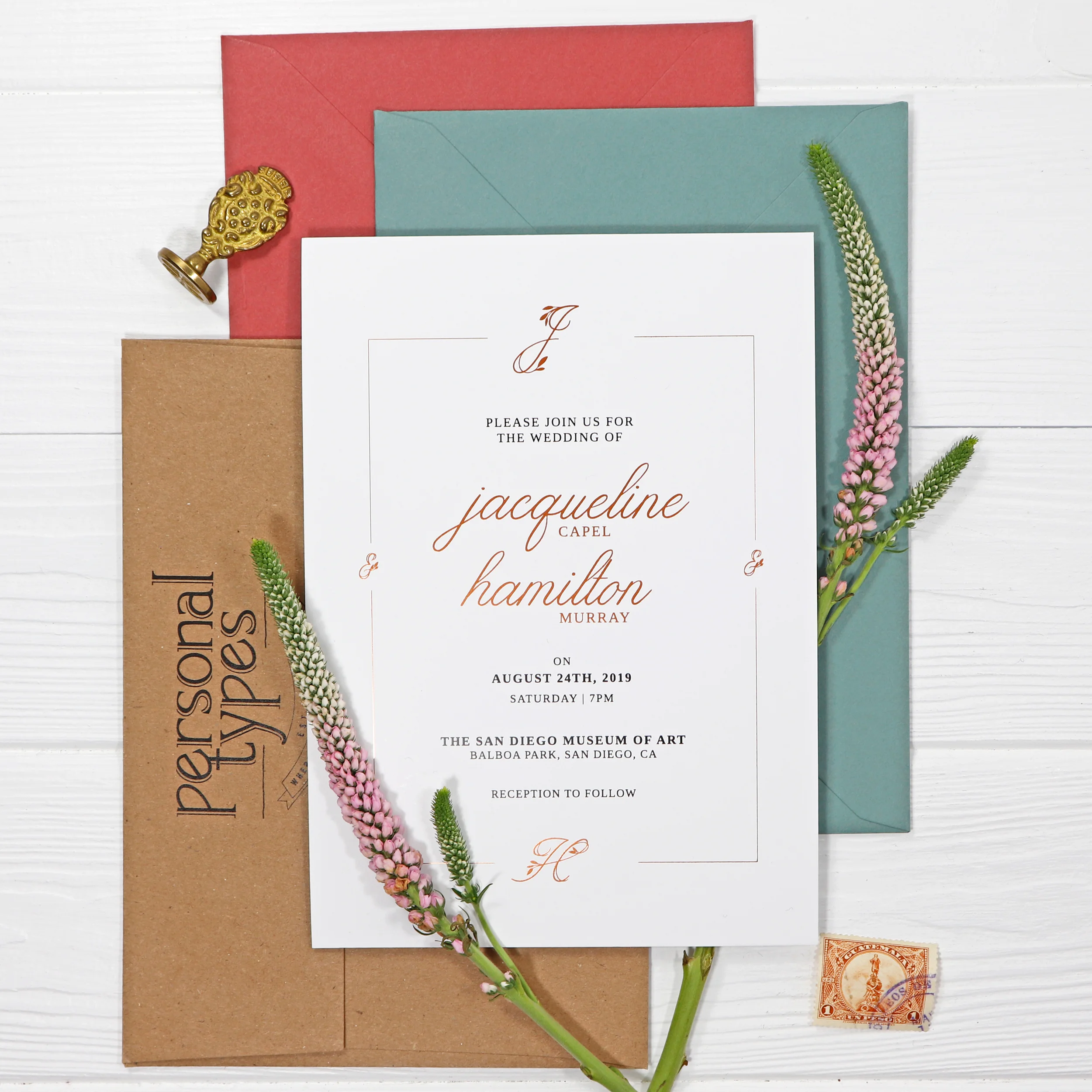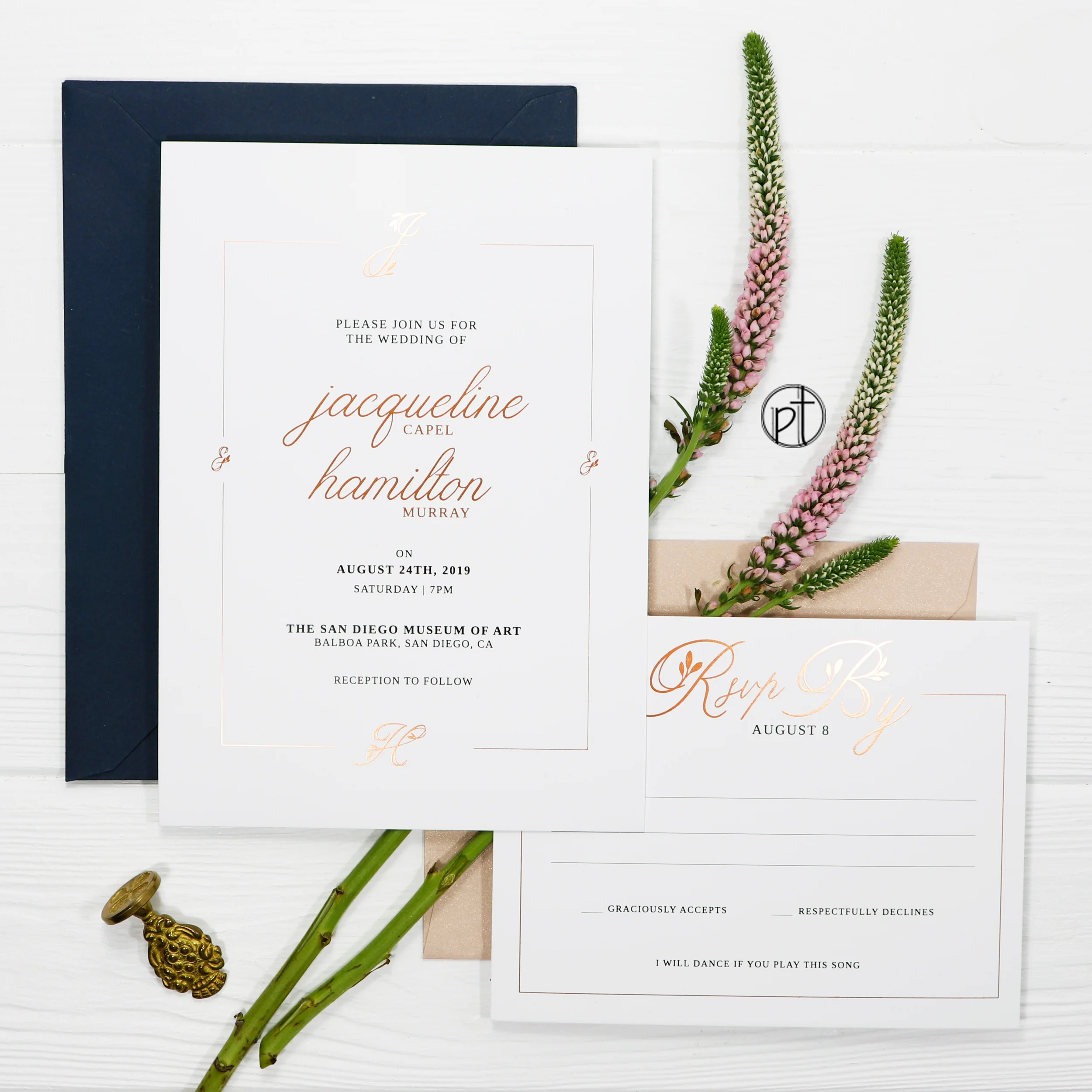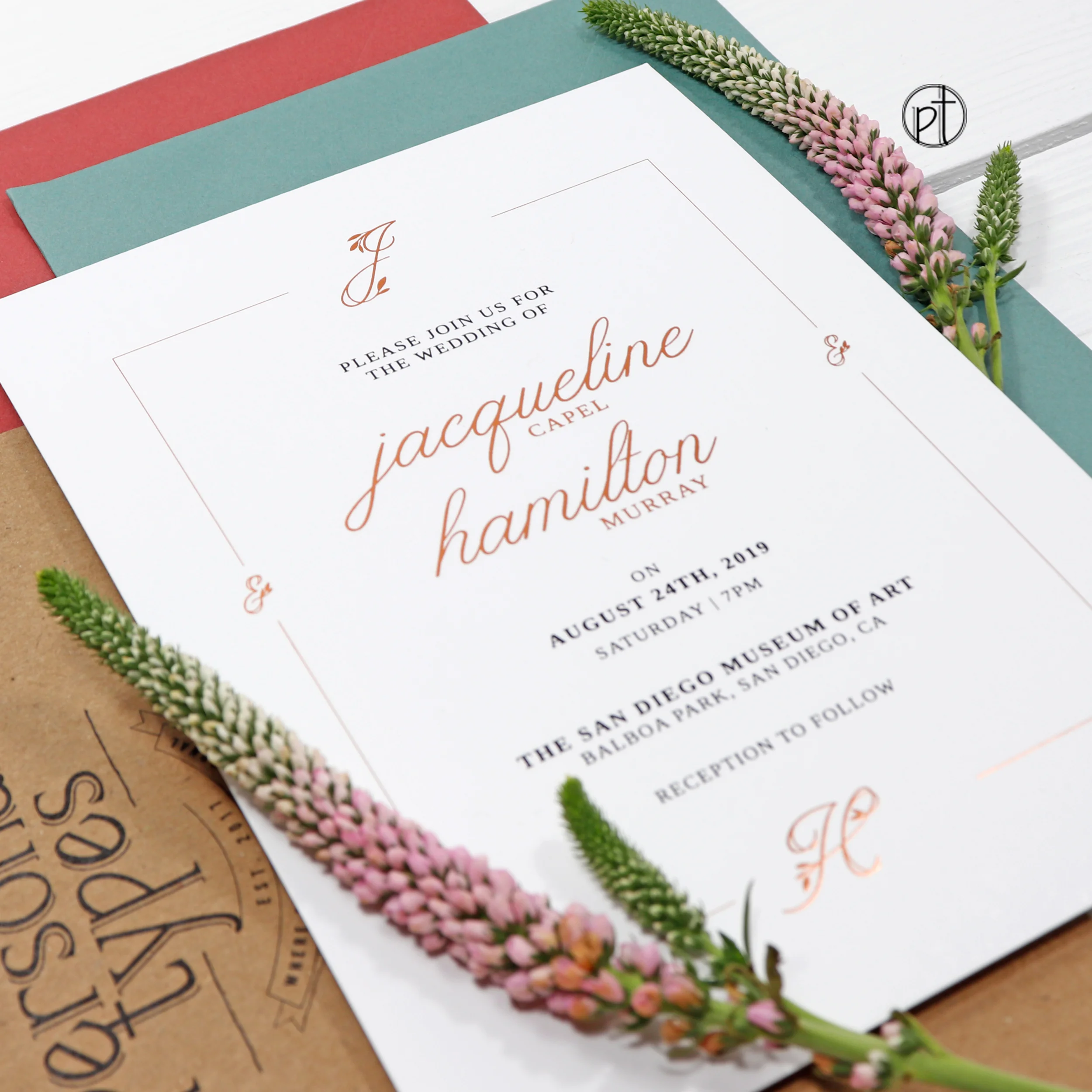
Floral Elegance
Floral Elegance is the fifth new addition to the “Just Type” challenge collection. The font challenger is called Limerence Floral. Limerence is a script font, it is also decorative and swirly with leaf detail. I love how it has a touch of vintage but not over the top classical cursive fonts. In this design, I use the decorative type as a design element instead of main focus. By doing so, this suite still can meet the standard of the challenge. You can read more about this process here in Daily Personal Types